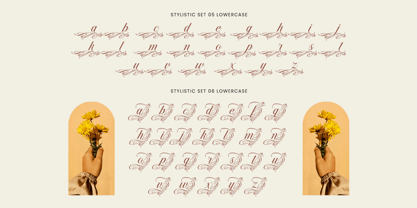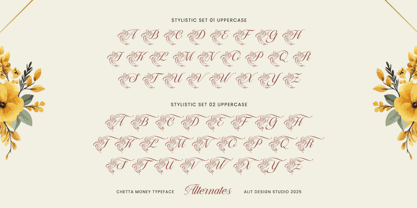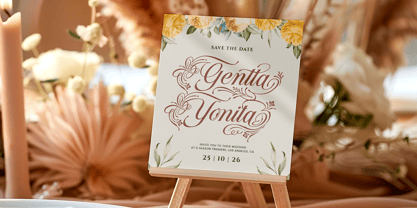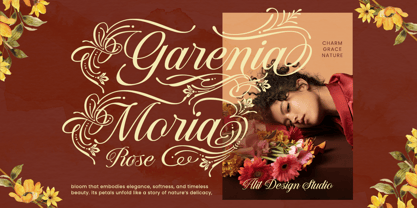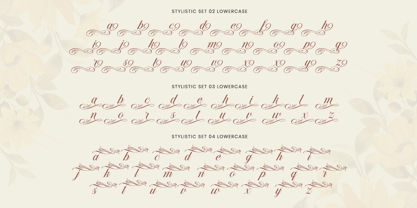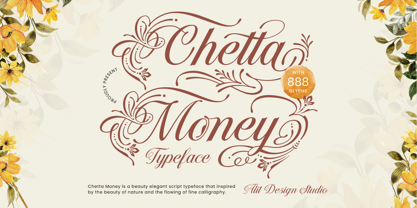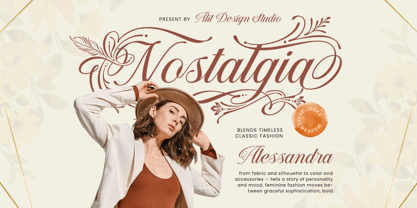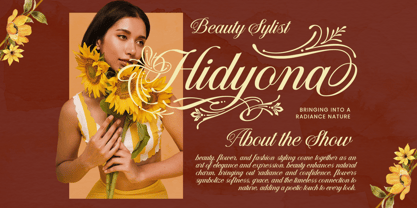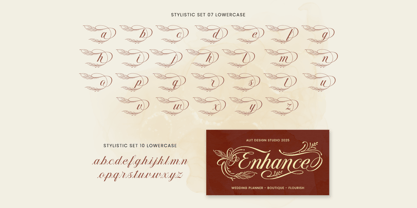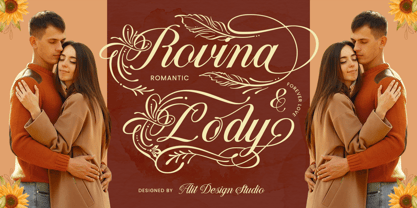
Chetta Money
by Alit Design
The Chetta Money Font Family was designed by Alit Suarnegara and published by Alit Design. Chetta Money contains 1 styles.
Chetta Money Typeface – An Elegant Script of Natural Beauty Step into a world where elegance and nature intertwine with Chetta Money, a breathtakingly beautiful script typeface from Alit Design Studio. Inspired by the delicate flow of fine calligraphy and the abstract beauty of the natural world, Chetta Money brings a touch of timeless sophistication and organic charm to any creative project. From the gentle curve of a petal to the graceful sweep of a vine, every character in Chetta Money is crafted with meticulous attention to detail. Its fluid lines and ornate flourishes move with a life of their own, creating a perfect harmony between classic lettering and modern design. What truly sets Chetta Money apart is its incredible versatility. With an extensive collection of over 888 glyphs, this typeface offers an unparalleled level of creative freedom. Explore a treasure trove of stylistic alternates, from subtle swashes to elaborate, nature-inspired decorations. Whether you need a simple, elegant initial or a show-stopping headline, Chetta Money provides the perfect flourish for every occasion. Perfect For: Luxury Branding & Logos: Create unforgettable logos for boutiques, wedding planners, photographers, and high-end brands. Wedding & Event Invitations: Design enchanting and romantic invitations, save-the-dates, and place cards. Editorial & Magazine Design: Add a touch of elegance to headlines, titles, and feature quotes. Product Packaging: Elevate your packaging design with a font that speaks of quality and craftsmanship. Social Media Graphics: Craft beautiful and shareable quotes, announcements, and branding posts. Book Covers & Stationery: Infuse your stationery and book designs with a personal, artistic touch. What's Included: A complete set of Basic Uppercase & Lowercase Characters Numbers & Punctuation An extensive range of Stylistic Alternates (Stylistic Sets 1-10+) for unparalleled customization. Beautifully crafted Ligatures Full PUA (Private Use Area) Encoding for easy access to all glyphs in any design software. Multilingual Support With Chetta Money, you're not just choosing a font; you're embracing an art form. Let its natural elegance flow through your designs and watch your creative visions blossom. Elevate your work with Chetta Money today!